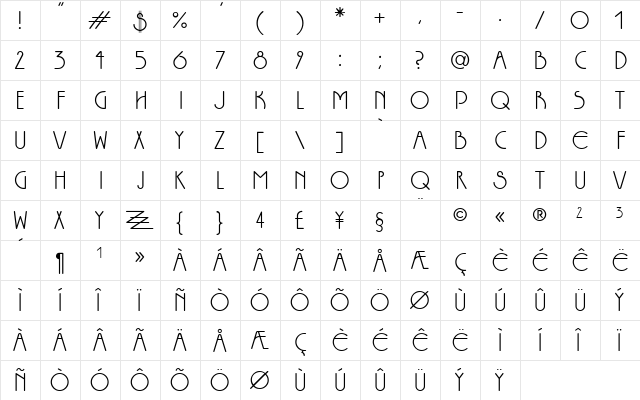
Jazz Ragtime DEMO Regular
| Foundry | URW |
| Designer | c22i2.mnl.ph |
Design Context for Jazz Ragtime DEMO Typeface
Jazz Ragtime DEMO is a composed and adaptable typeface that performs quietly and consistently across a wide range of design contexts.